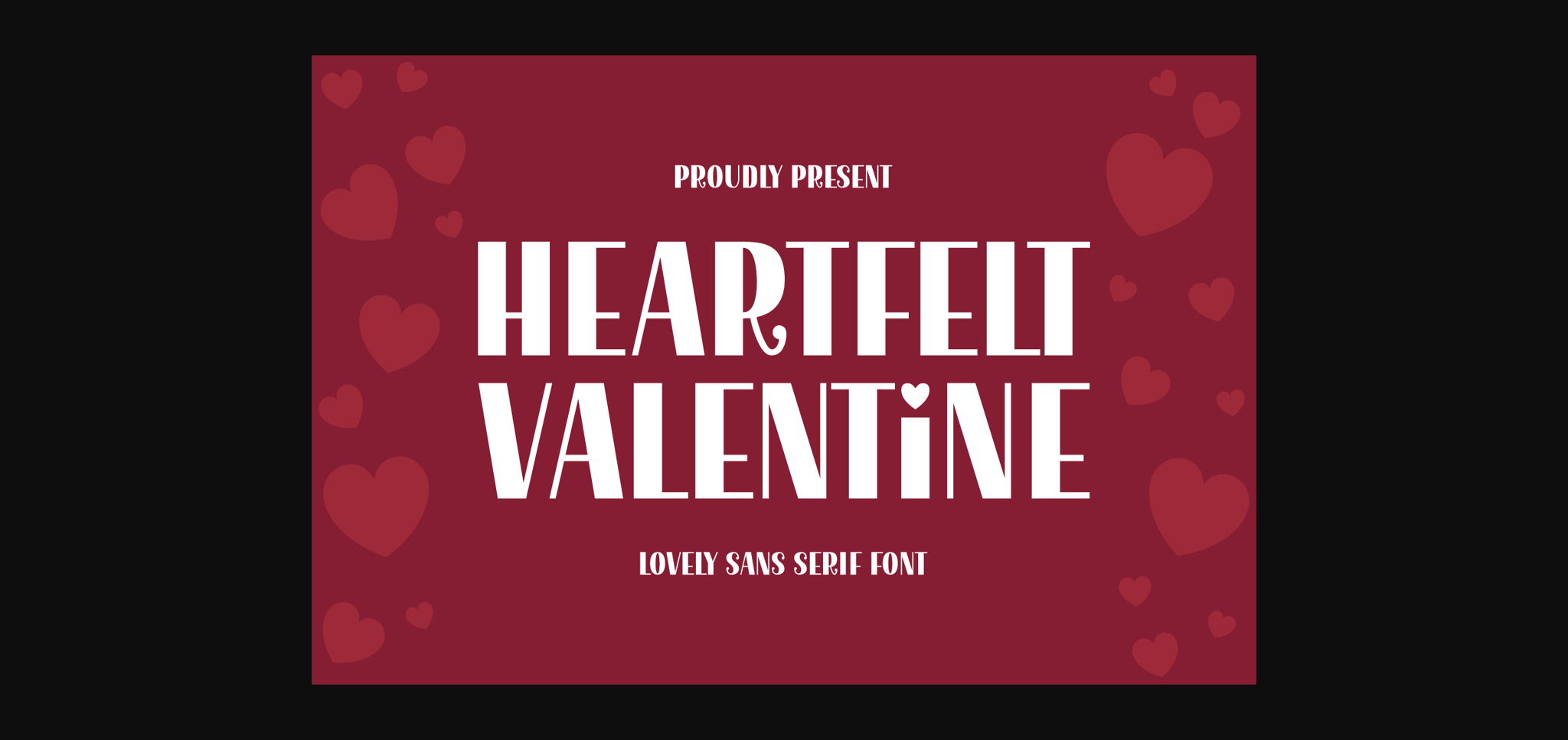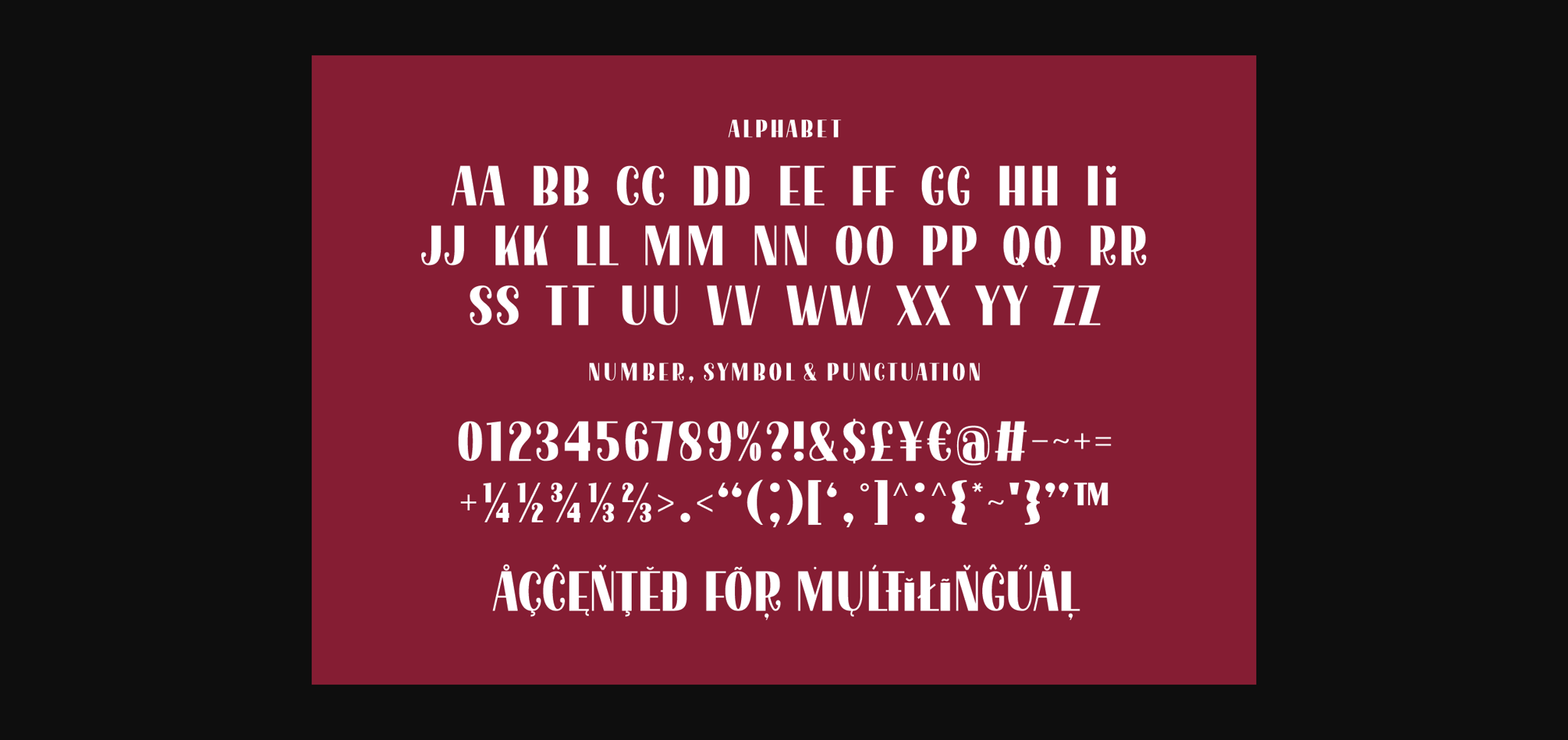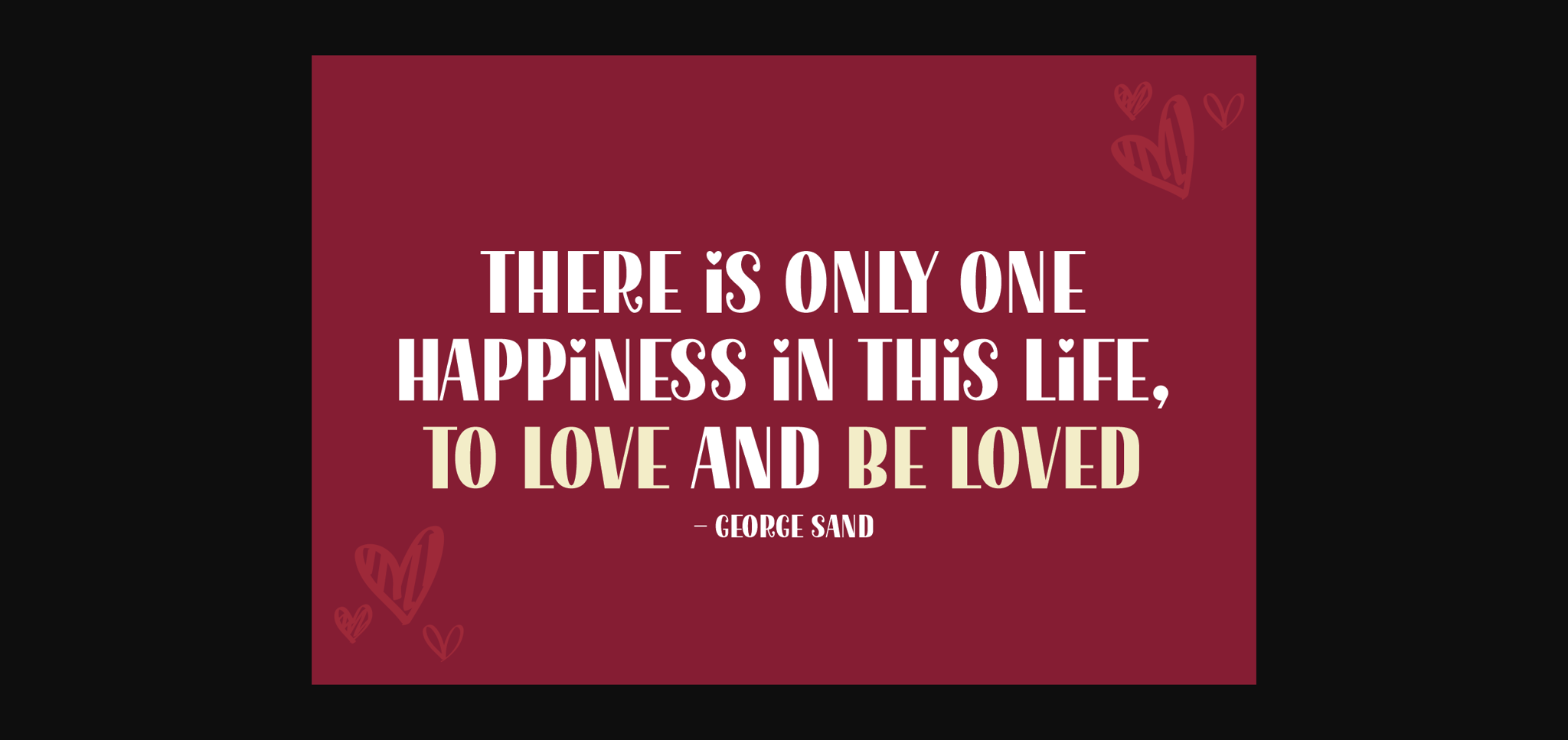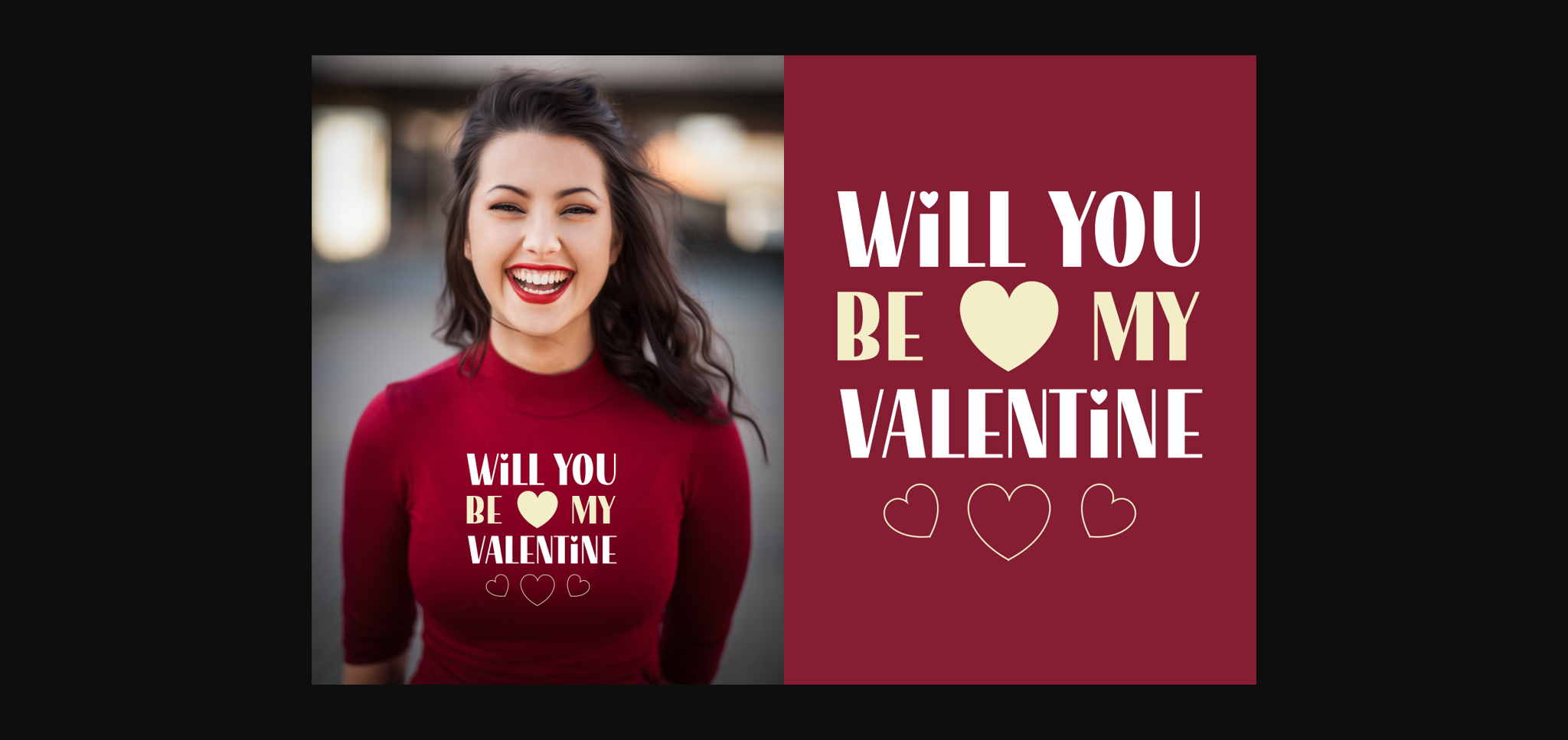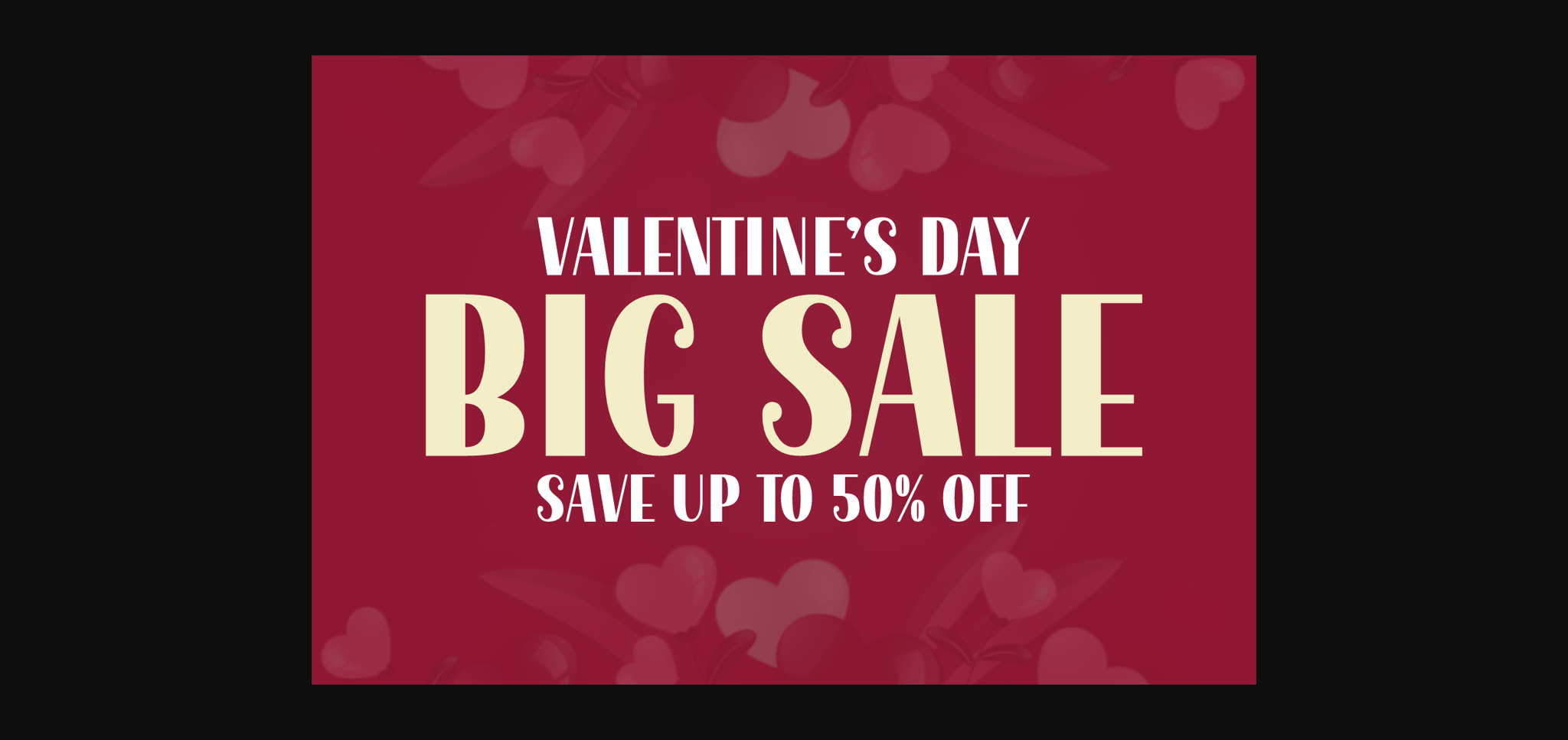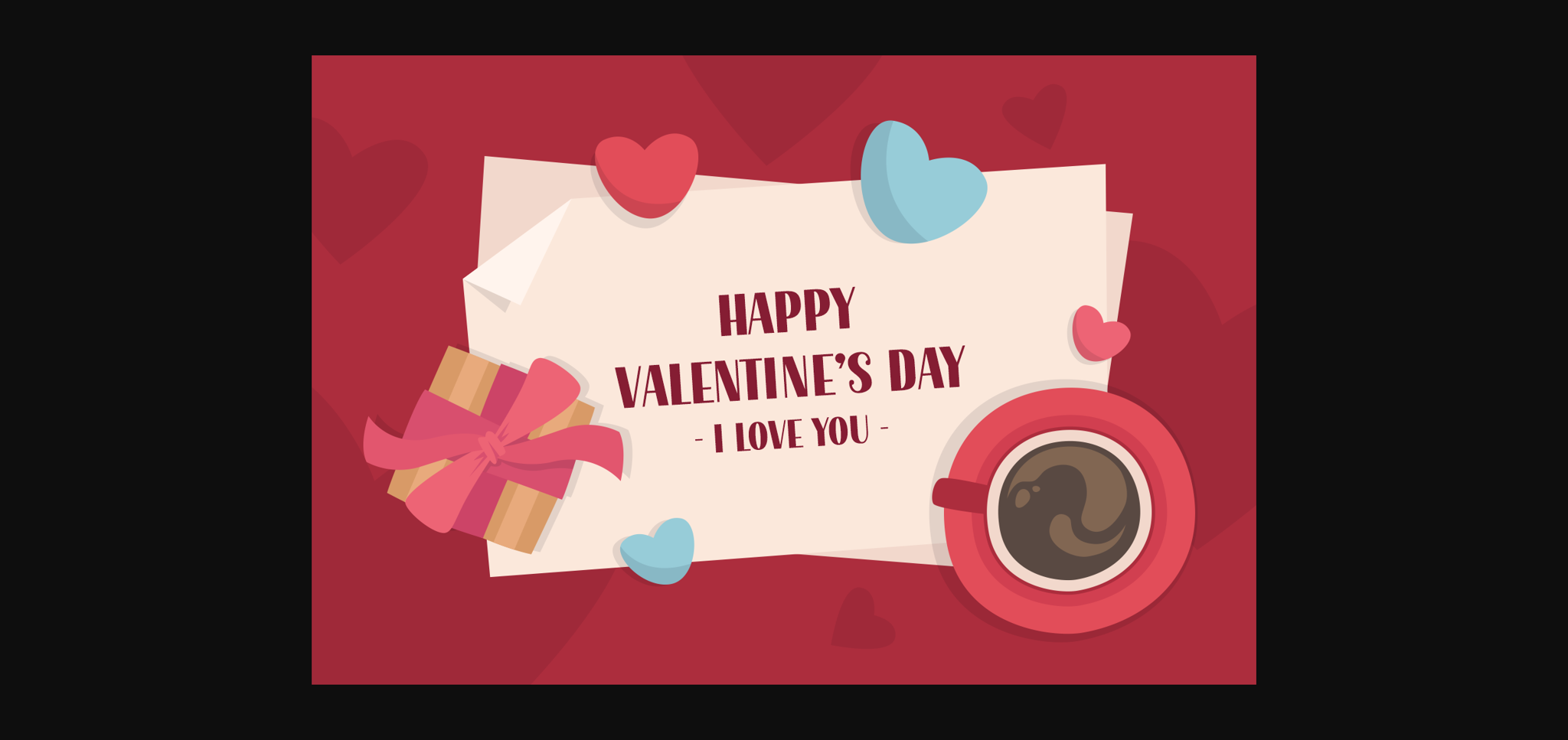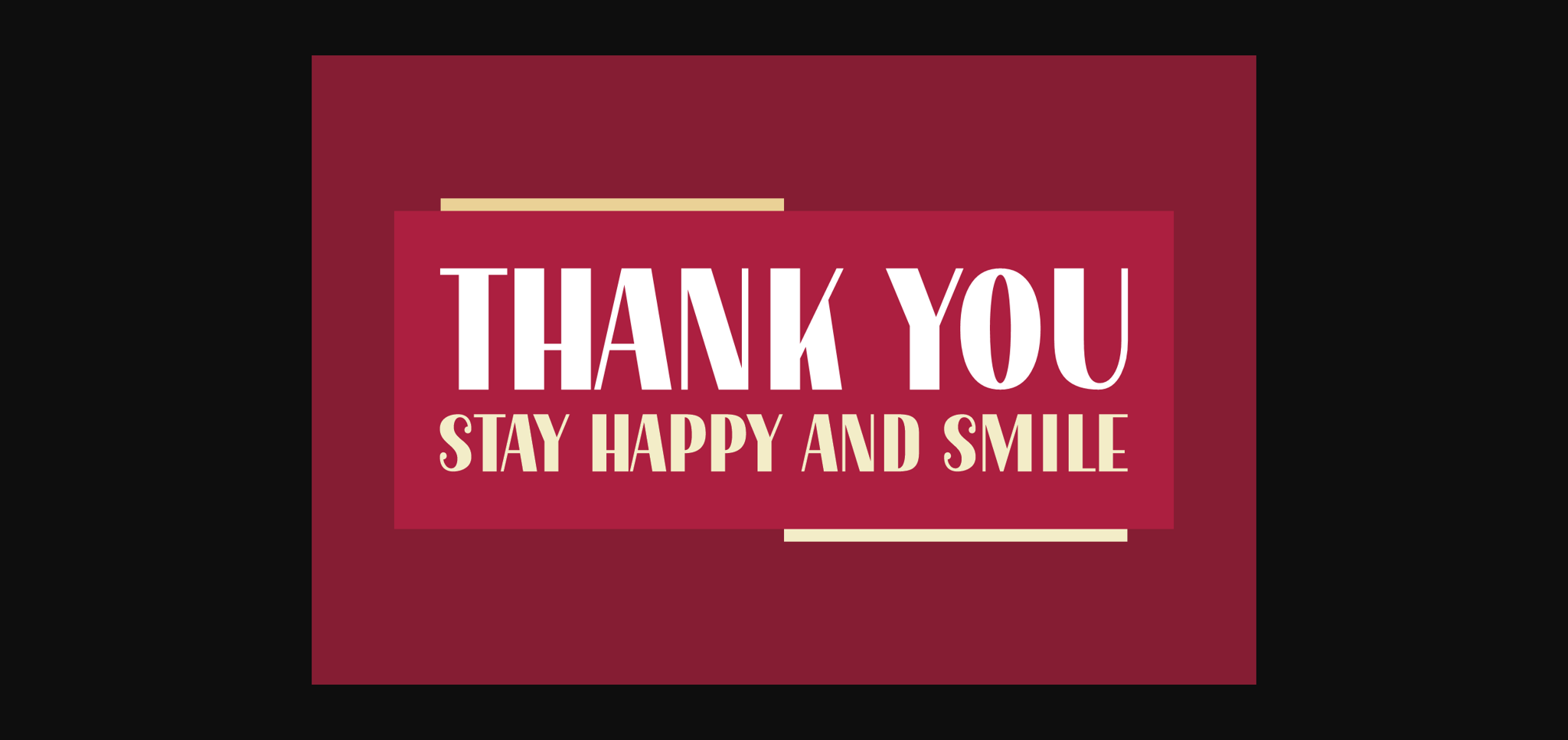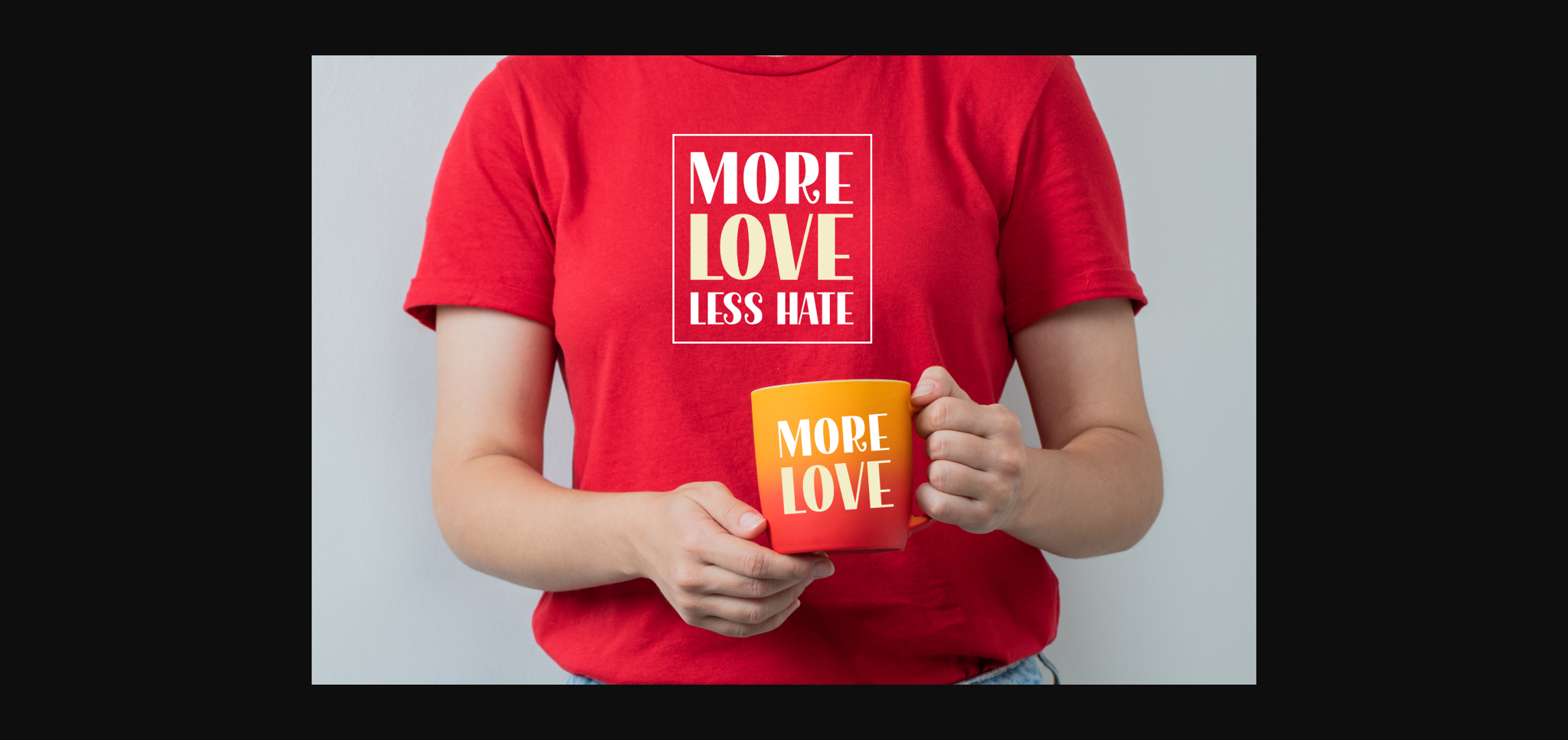
Heartfelt Valentine Font
About Heartfelt Valentine Font
Heartfelt Valentine is a lovely sans-serif font designed to spread love and warmth in every letter. With a clean and simple style, it’s perfect for expressing affection and sweetness in your designs. Whether you’re creating Valentine’s Day cards, love notes, or romantic messages, this font adds a touch of heartfelt charm. Share your emotions with clarity and simplicity using Heartfelt Valentine, the perfect choice for conveying love cleanly and stylishly.